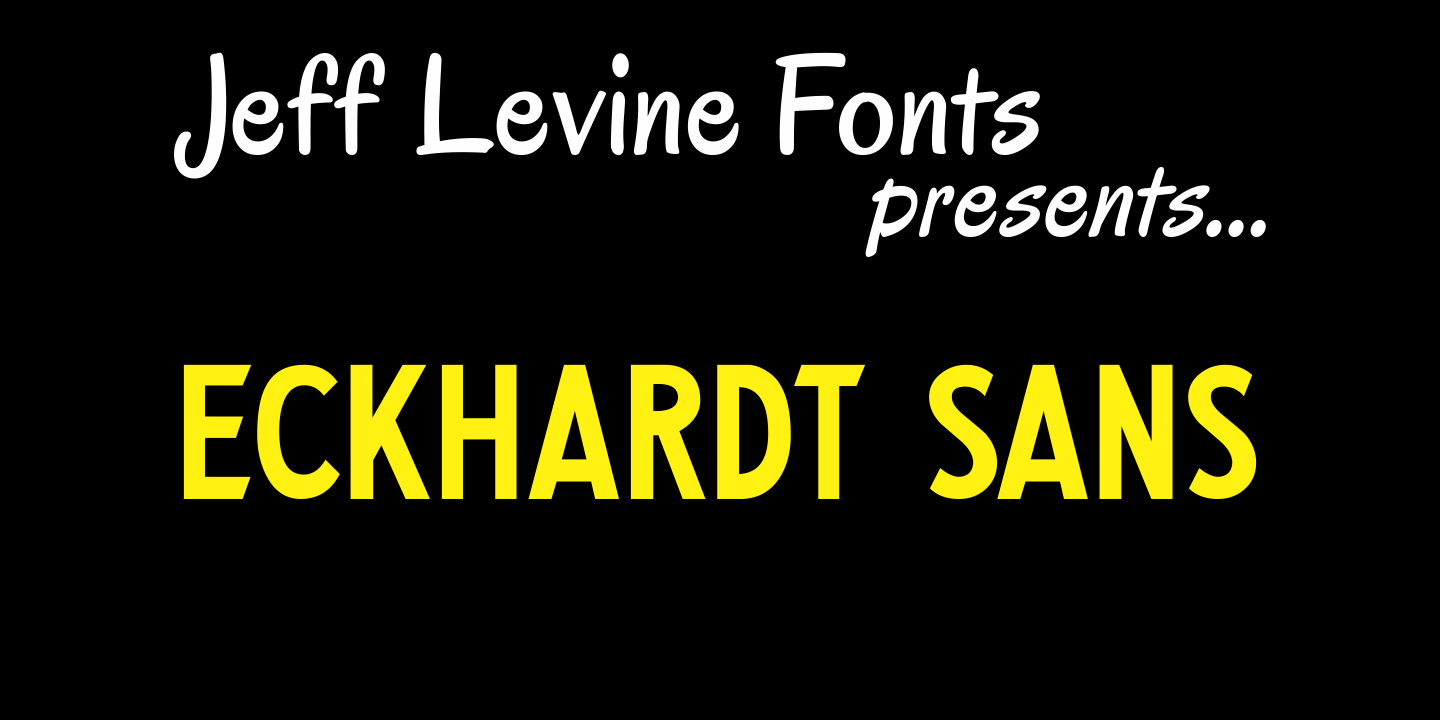
Eckhardt Sans
Eckhardt Sans JNL continues Jeff Levine's "mini series" of fonts modeled after hand-lettering used by sign painters; and named after his good friend, the late Al Eckhardt of Allied Signs in Miami, Florida. Clean and somewhat condensed, this sans face has chiseled edges on many characters and the warmth of the lettering once made by brush or ink pen. Use this font in conjunction with any casual typeface to invoke the days of sign shops and talented lettering artists.